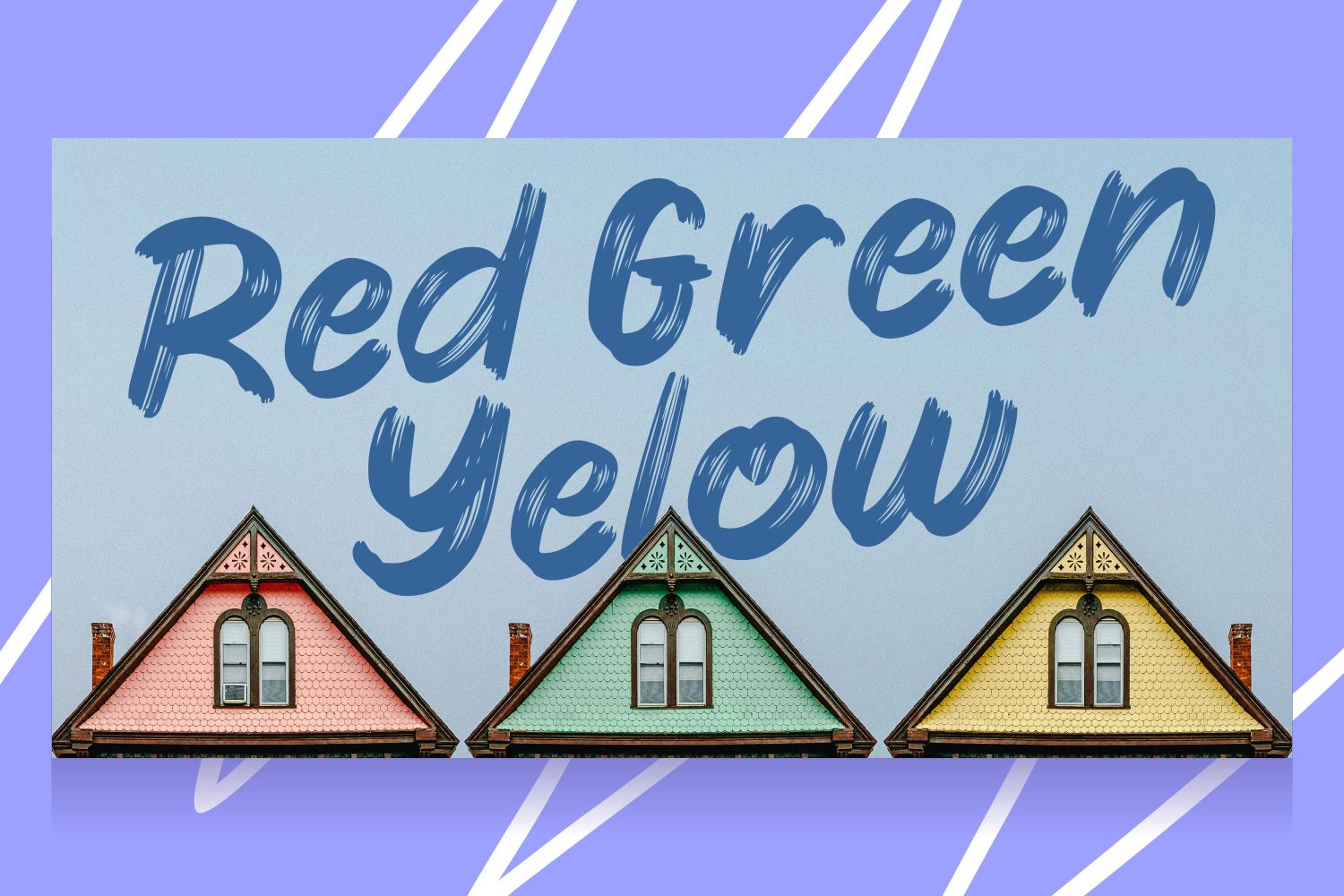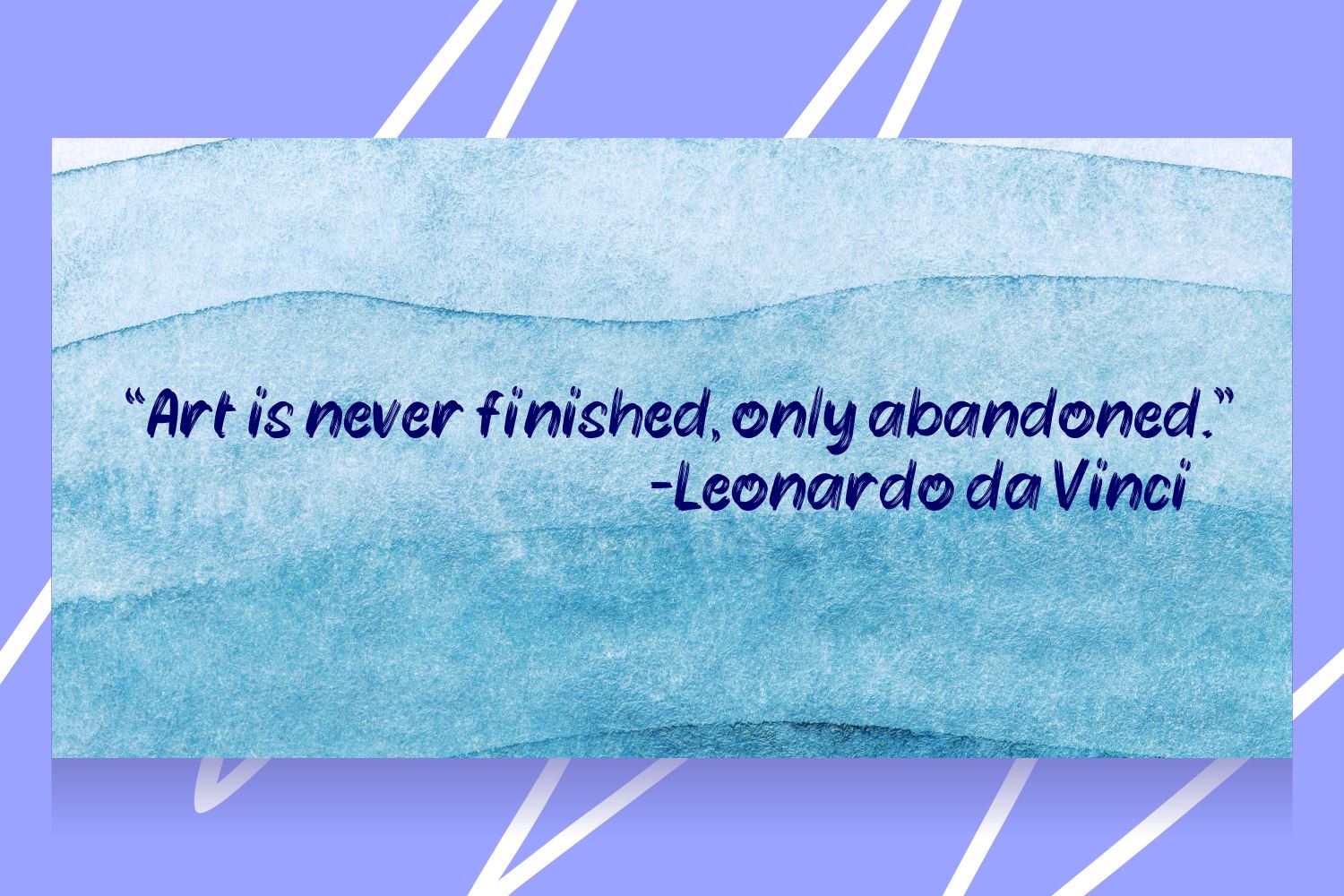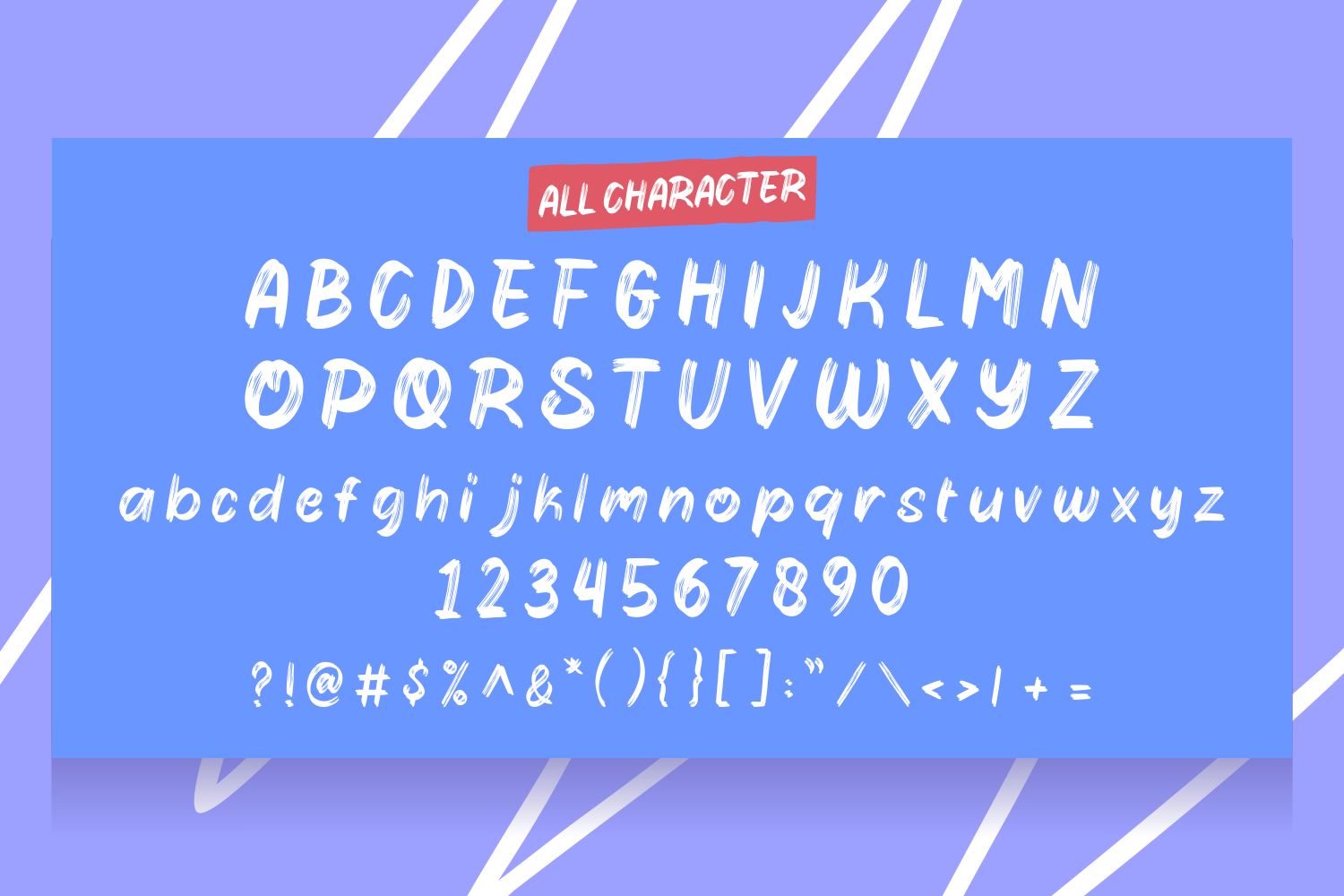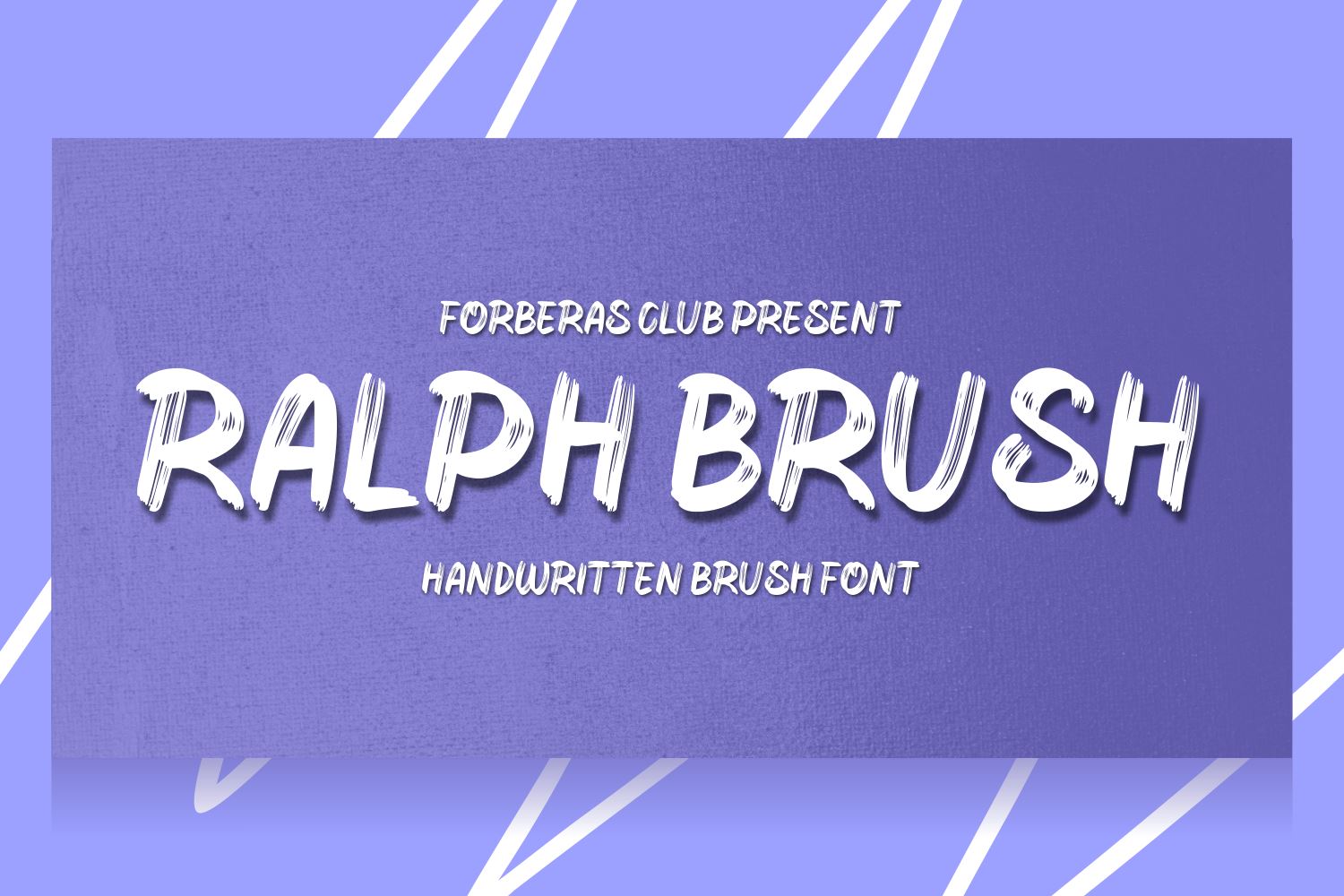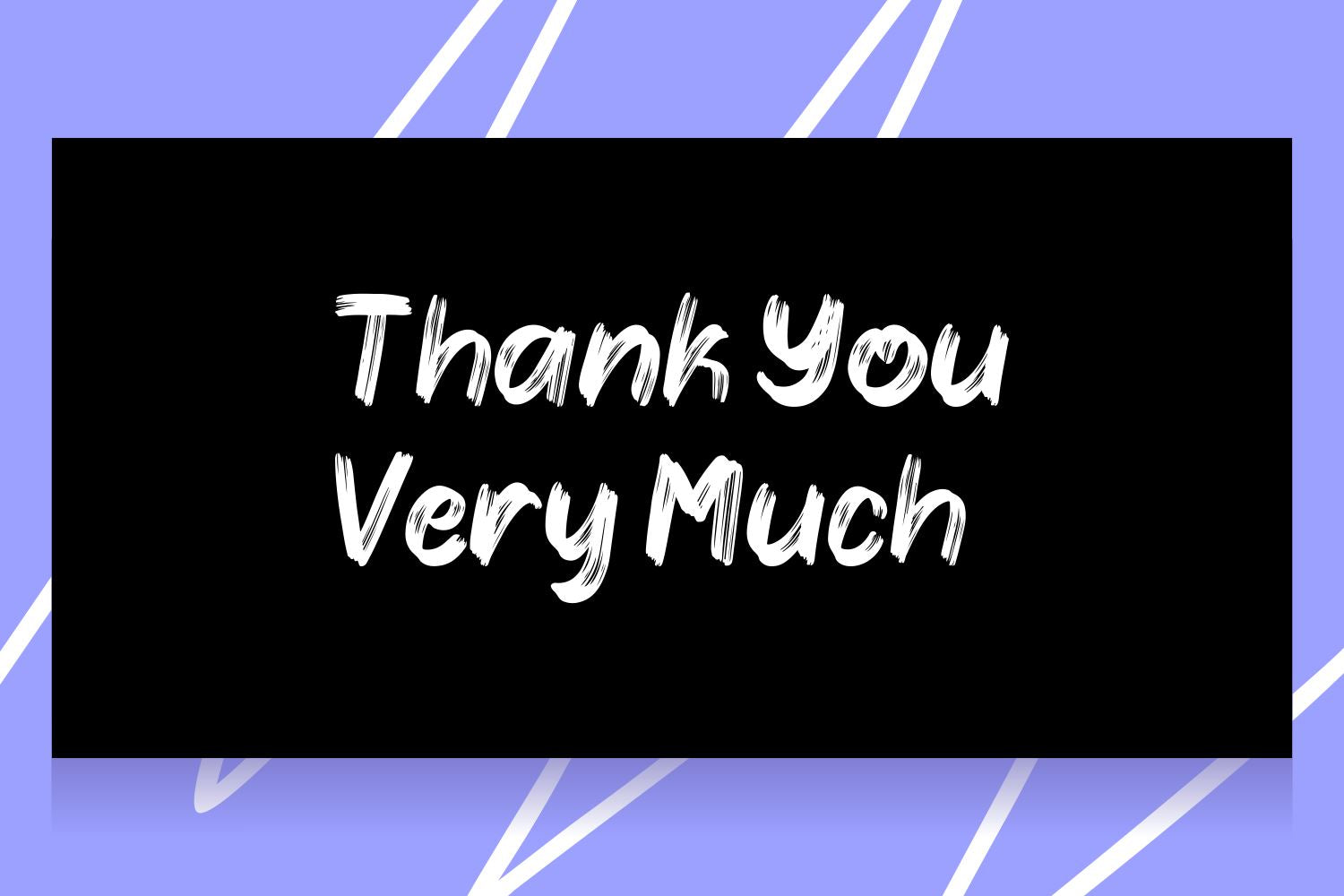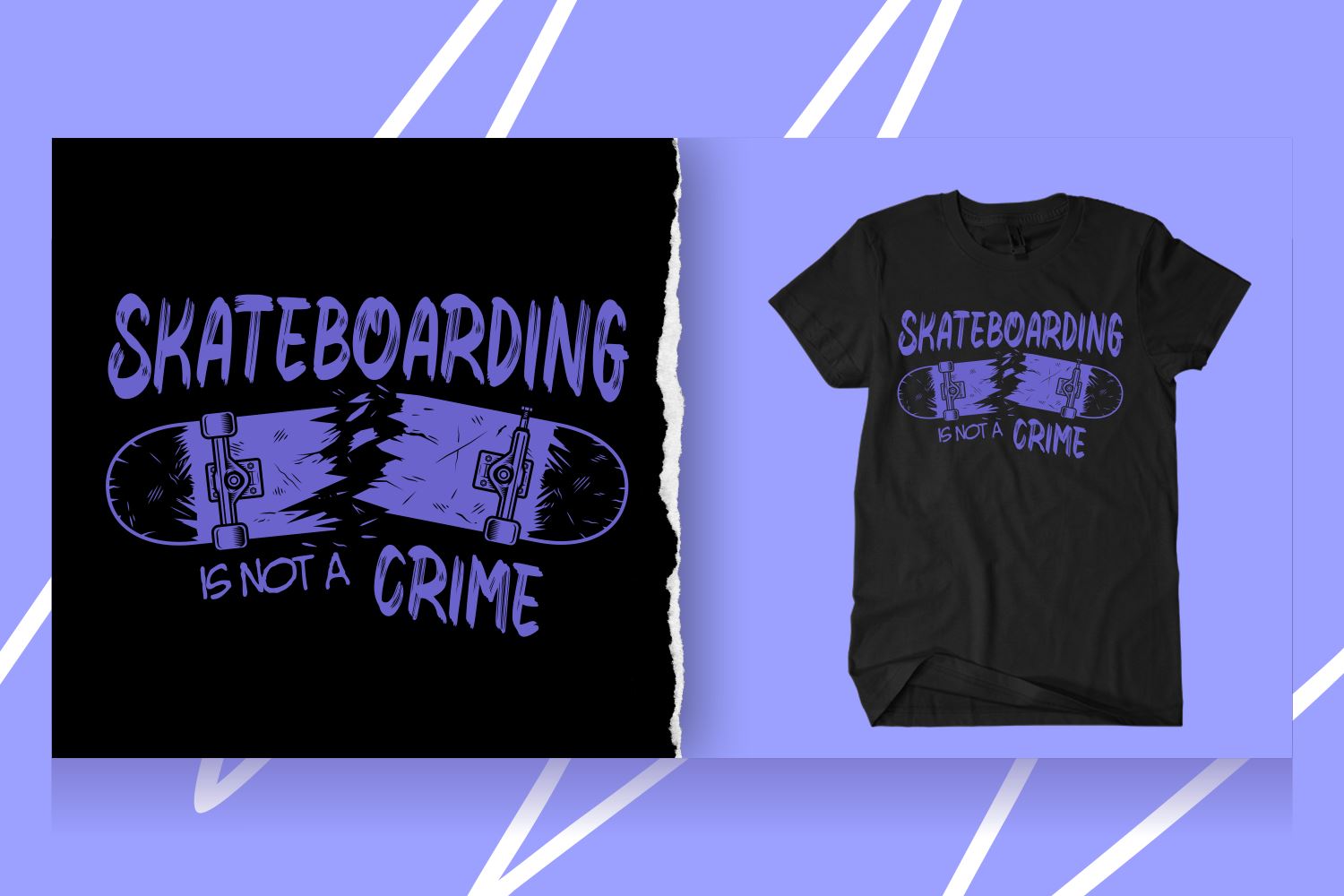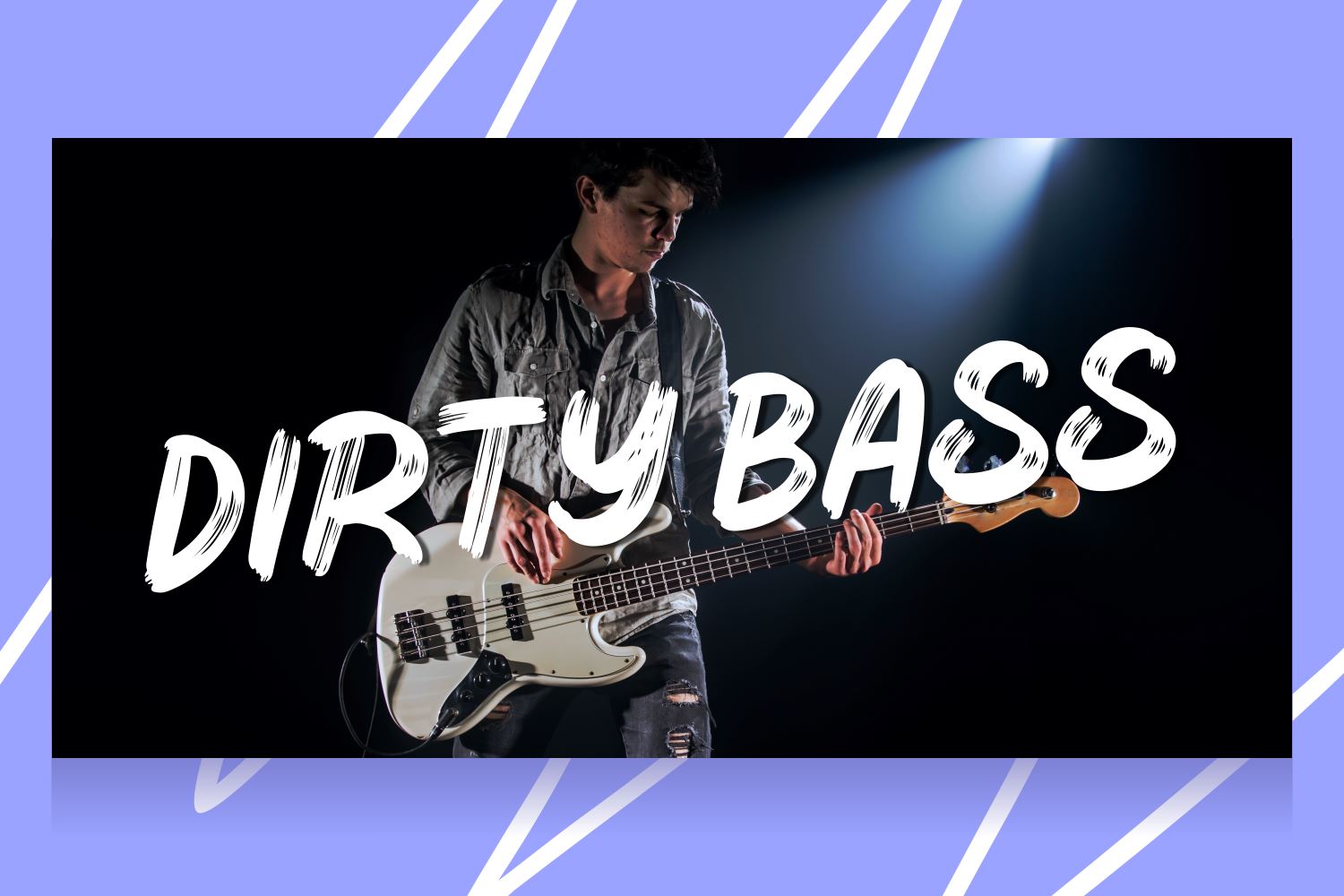
Ralph Brushes
About Ralph Brushes
Introducing Ralph Brushes Font by Forberas Club Ralph Brushes is a Modern Handwritten Font. Ralph Brushes is perfect for book cover, product packaging, branding project, megazine, social media, wedding, or just used to express words above the background.This font includes TTF and OTF, This font also multilingual support.